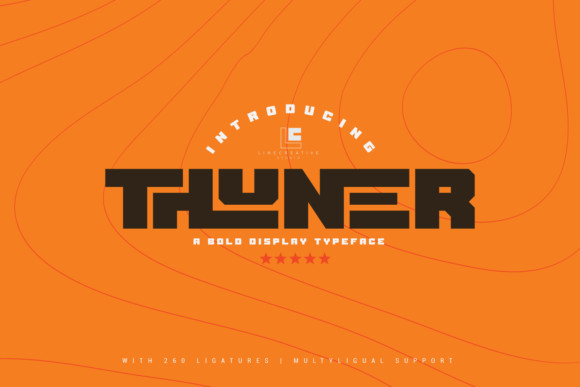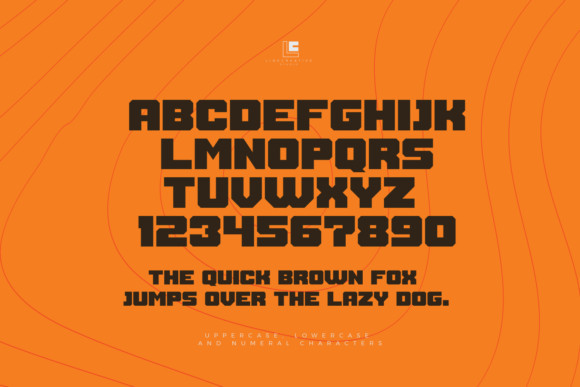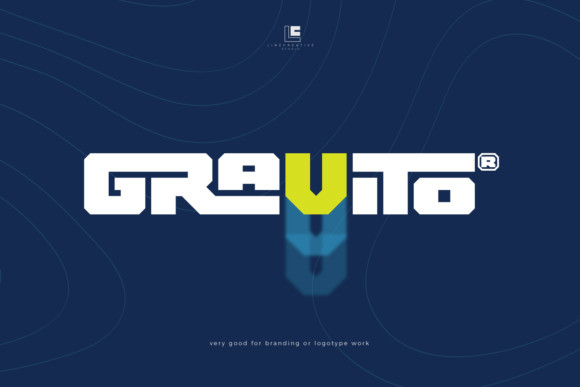
Thuner Font
Thuner is a bold and authentic display font. Masterfully designed to become a true favorite, this font has the potential to bring each of your creative ideas to the highest level!